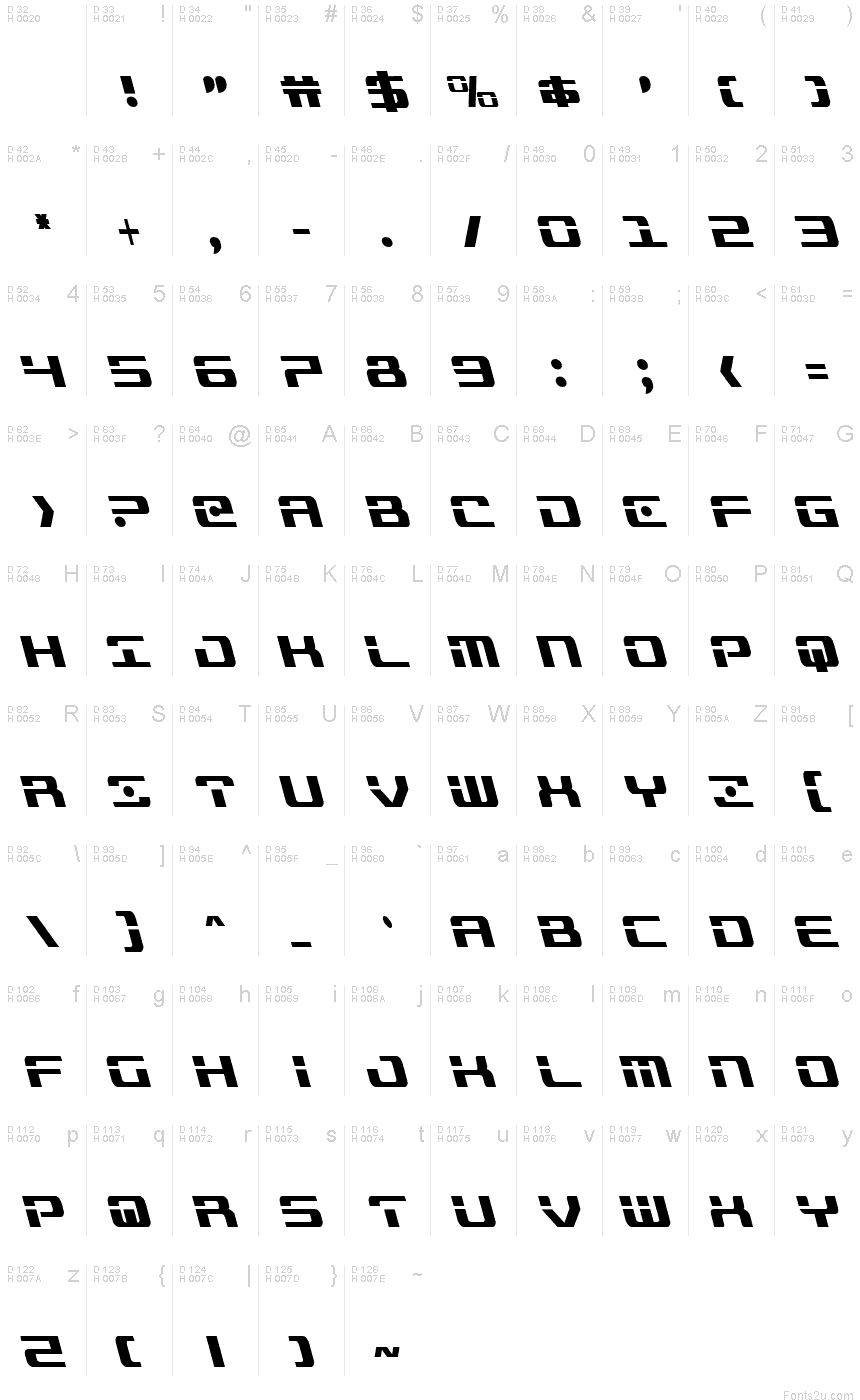
Troopers Condensed Leftalic by Daniel Zadorozny of Iconian Fonts is a free futuristic display font with broad forms and a forceful reverse slant. Sharp wedges and horizontal cutouts give the tightly fitted letters a machine-tooled profile.
It moves convincingly between science-fiction title cards and motorsport branding because the backward lean suggests speed without copying familiar racing italics. Game interfaces, event posters, and electronic music packaging also suit its sweeping curves and mechanical cuts, particularly for audiences drawn to arcade hardware and industrial technology.
Troopers Condensed Leftalic